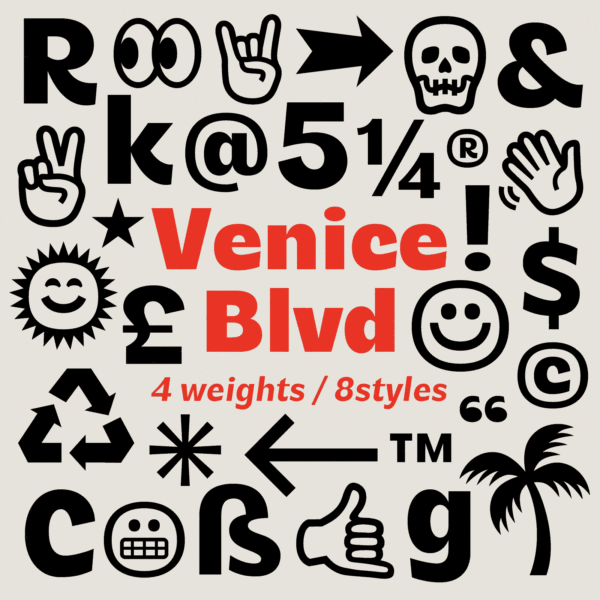
Venice Blvd Font
Say hello to Venice Blvd, an unpretentious, good-timing sans-serif display typeface from Hoodzpah.
Introducing Venice Blvd Typeface
For those instances when you just need a bit of bounce, a bit of “je ne sais what now?”: may we introduce Venice Blvd. This display family is as eccentric as the drum circle at Venice Beach; as curvy as the Venice skate park bowls; as unpretentious as the souvenir stand selling pukka shell necklaces.
Venice Blvd font Specimen bodega signs: "smile you're on camera" "sorry hippies: no shoes, no shirt, no service", "Thank you for shopping with us"
Pairing font: Beverly Drive Right script
With Tons of Fun Symbols and Emojis
Venice Blvd Font Hoodzpah symbols emoji
Venice Blvd Font Regular Italic
Venice Blvd Font Semibold and Italic
Venice Blvd font Specimen Liquor store
Venice Blvd font on drink cans and bottles on a bodega shelf
Venice Blvd Font Bold and Italic
Venice Blvd Font Black Italic
Venice Blvd Font 8 degree italic
Venice Blvd Font terminals cap angle
Venice Blvd is a Vision in Logos
An oddball sans serif with plenty of personality to go around, Venice Blvd is an easy choice for logos looking to capture a playful, delicious, quirky vibe.
Venice Blvd Font shop logos 5
Venice Blvd Font shop logos 3
Venice BLVD font Mr thrift
Venice Blvd Font Hoodzpah Mr Cs
Venice Blvd Regular & Italic
Contact Highs & Palm Readings on the Boardwalk
Venice Blvd Semibold & Semibold Italic
Contact Highs & Palm Readings on the Boardwalk
Venice Blvd Bold & Bold Italic
Contact Highs & Palm Readings on the Boardwalk
Venice Blvd Black & Black Italic
Contact Highs & Palm Readings on the Boardwalk
Venice Blvd font is an amusing and unpretentious display sans-serif family with 4 weights and 8 styles. From the whimsical Regular weight all the way to the deep-fried-cronut that is the Black weight, there’s variety to suit most occasions (likely not funerals). 22+ Illustrative symbols also included to spice things up.
Typeface Design: Amy Hood and Jennifer Hood, Hoodzpah, Inc.
• Standard English alphabet in upper and lowercase
• Numerals, numerators, denominators, and fractions
• Currency Symbols, Standard Punctuation
• Plus extra glyphs like emojis, arrows, and more!